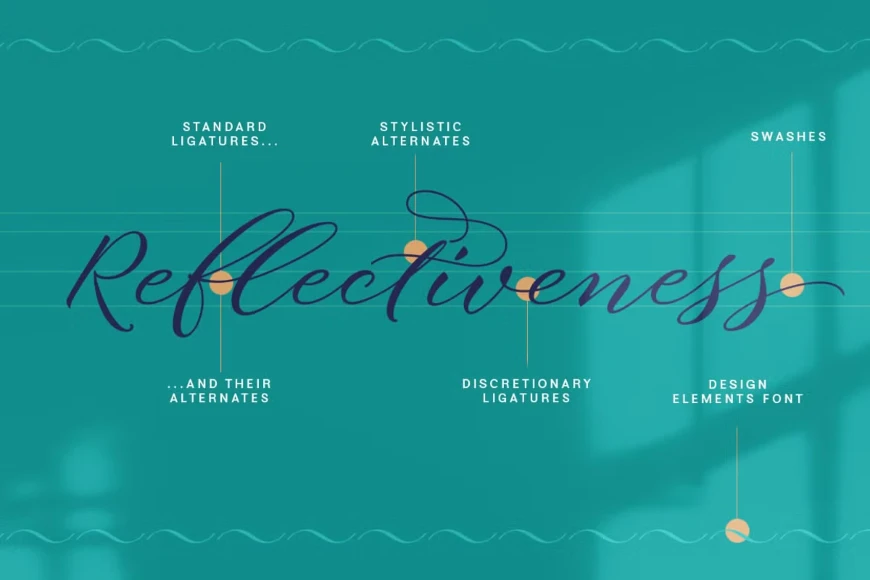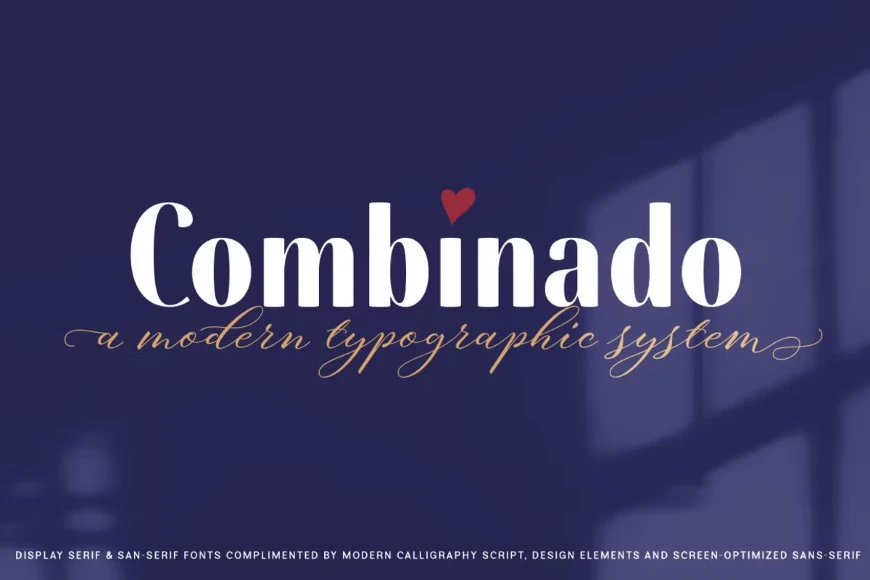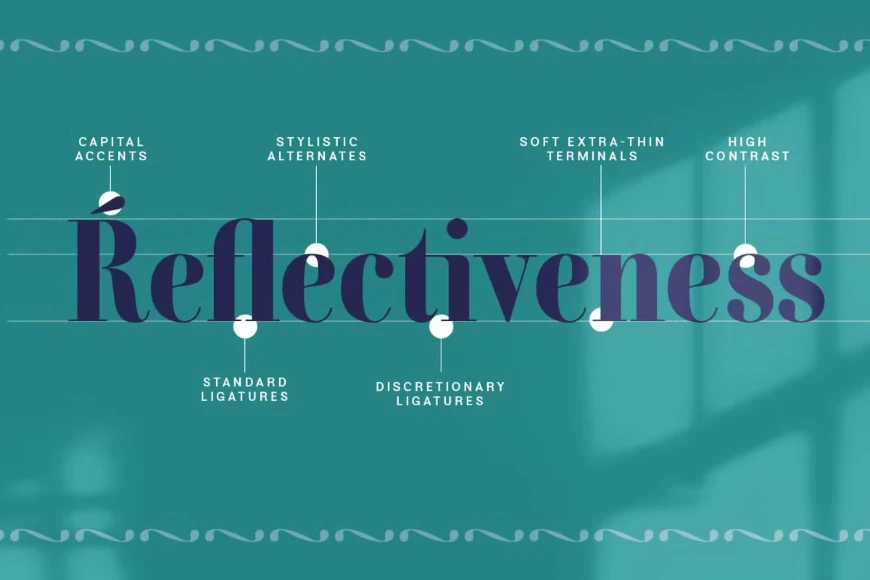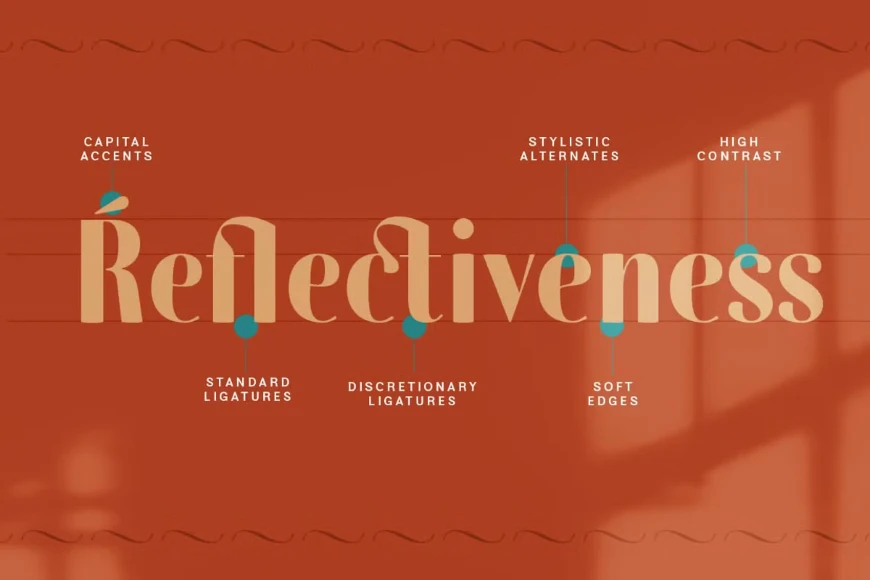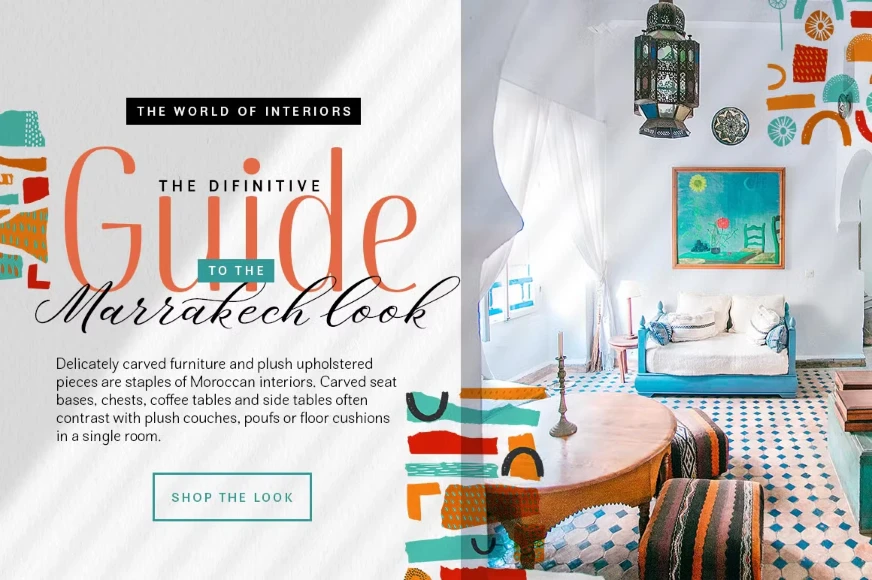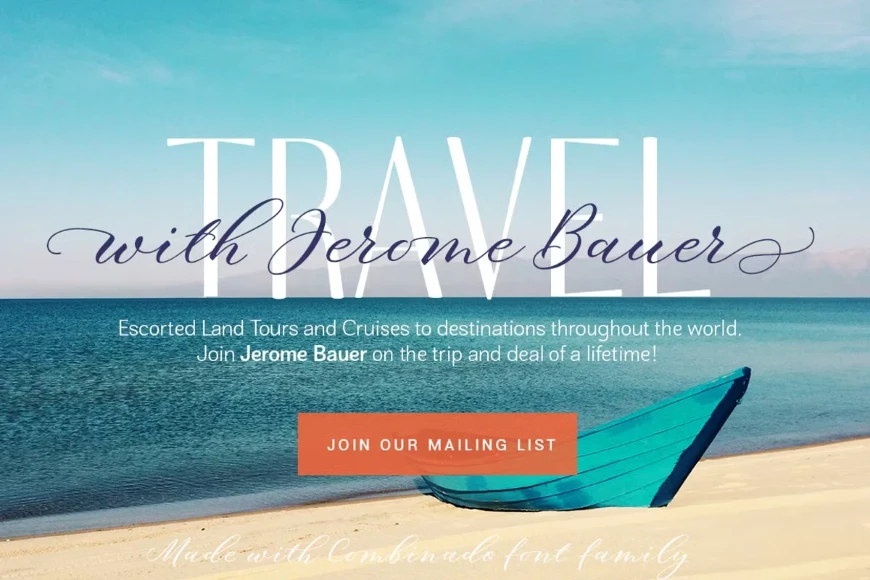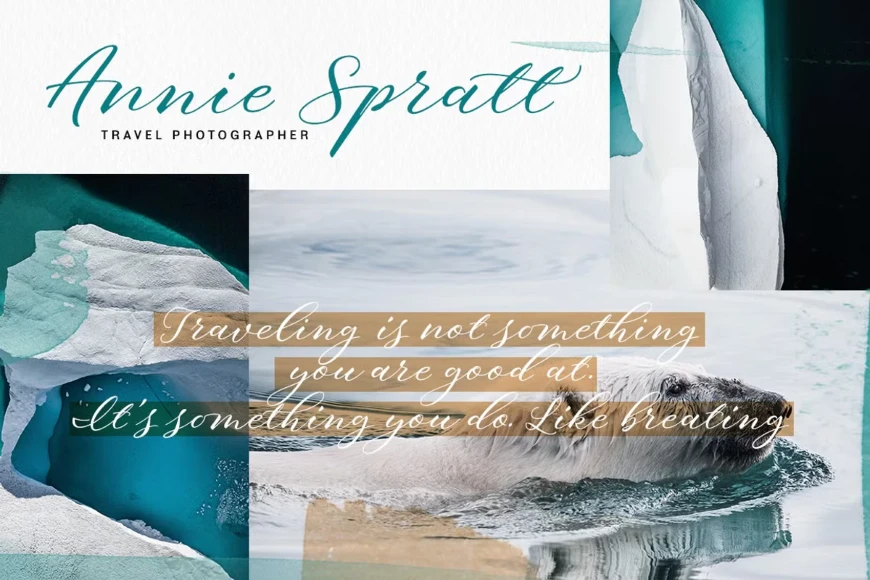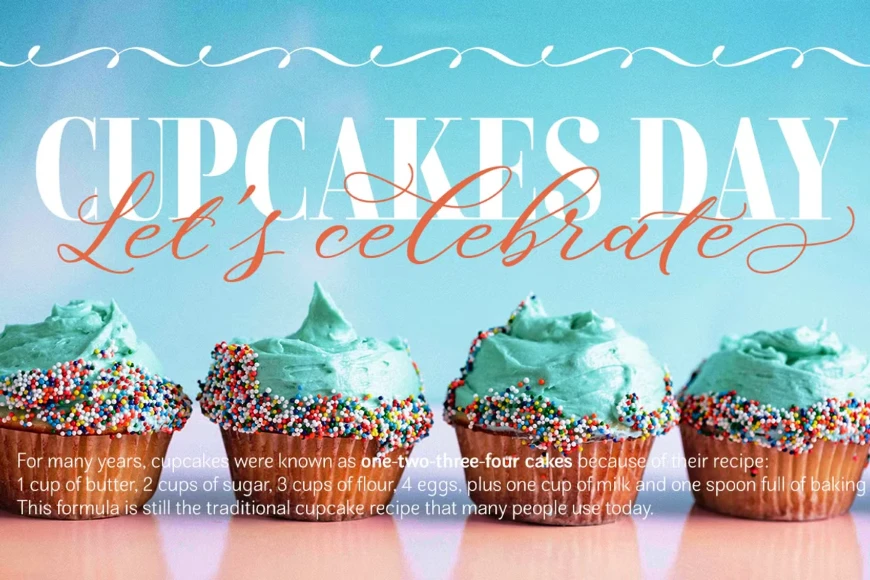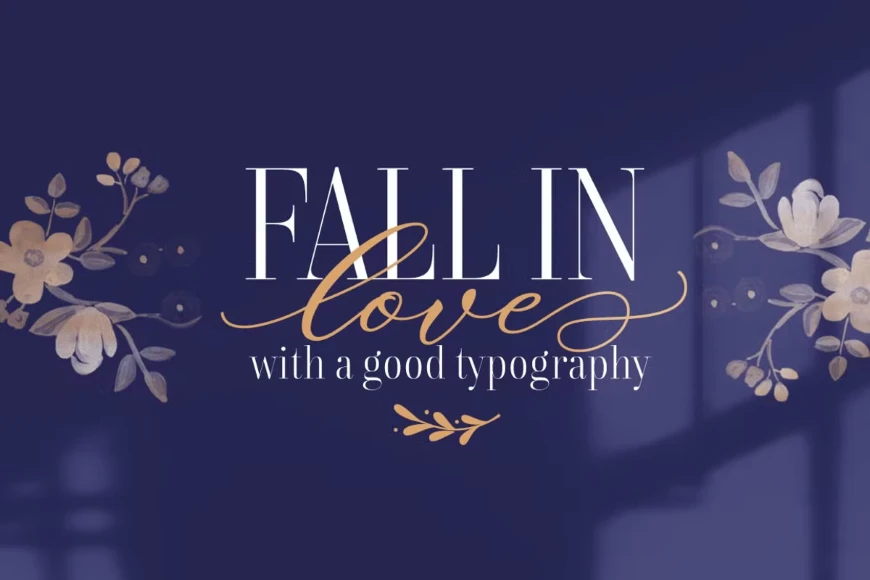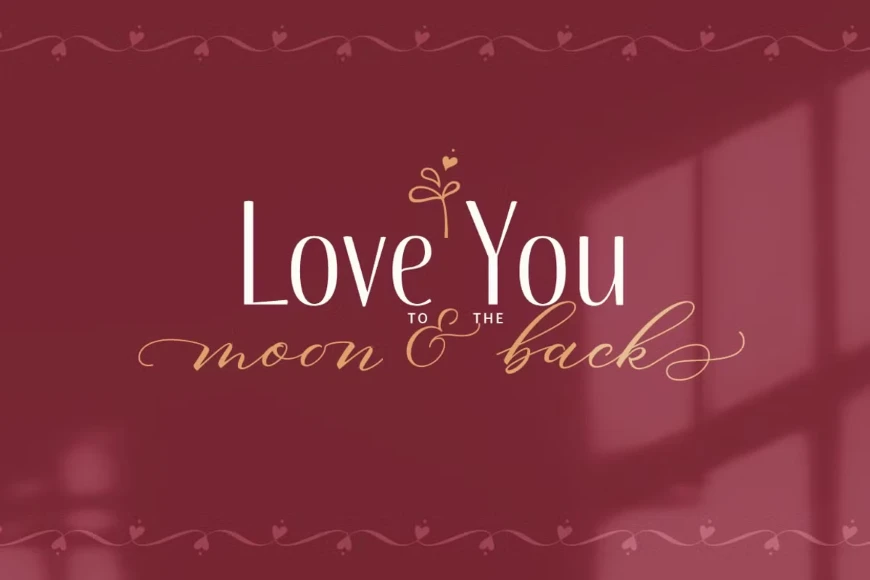
Combinado Serif
The Combinado Family has it all: an elegant display sans serif and serif fonts in three weights each; a modern calligraphy script that looks beautiful next to them; a sans font designed for the best on-screen reading experience, which comes in two weights; and the last but not least — a Design Elements font that has more than 70 elements to compliment your designs. Combinado is universal, and you can use it everywhere: websites, social media, magazines, books, cards, and invitation designs. Enjoy!
Designed by Elena Genova